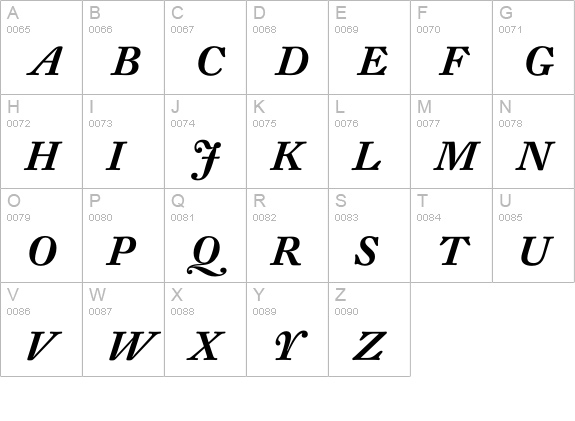
DTL Fleischmann ST Medium Italic Font Details
DTL Fleischmann ST Medium Italic is a balanced, medium-weight, italic variant in the DTL typeface family \xE2\x80\x94 well suited to sub-headlines, navigation, and balanced editorial work.
The DTL Fleischmann ST Medium Italic font is a versatile and elegant typeface that strikes the perfect balance between classic design and modern aesthetics. Its medium weight and italic style make it ideal for adding a touch of sophistication to any project, whether it be a print publication, website design, or branding materials. The graceful curves and subtle slant of the italic characters lend a sense of movement and fluidity to the text, making it visually engaging and appealing to the eye. This font is freely available to download at FontsMarket.com, making it easily accessible to designers, writers, and creatives looking to elevate their work with a high-quality typeface. Whether you're working on a professional project or a personal endeavor, the DTL Fleischmann ST Medium Italic font is sure to enhance your design with its timeless beauty and effortless charm.